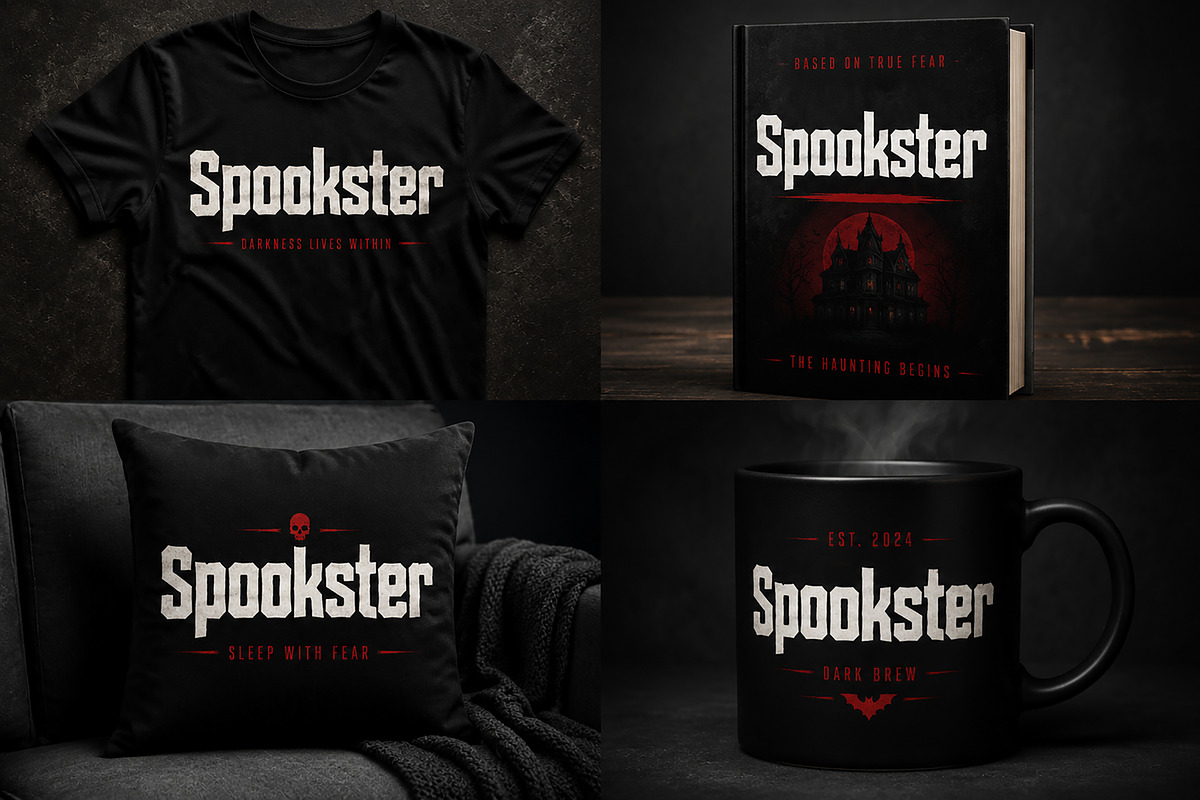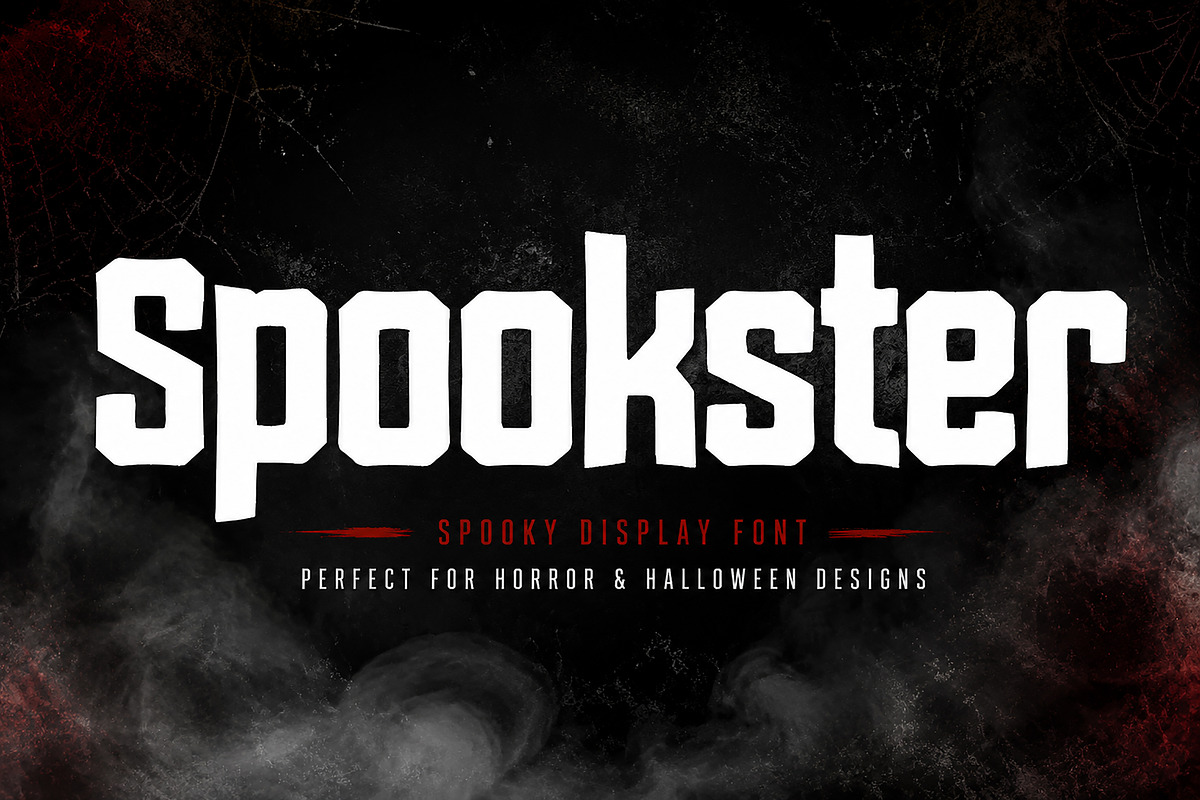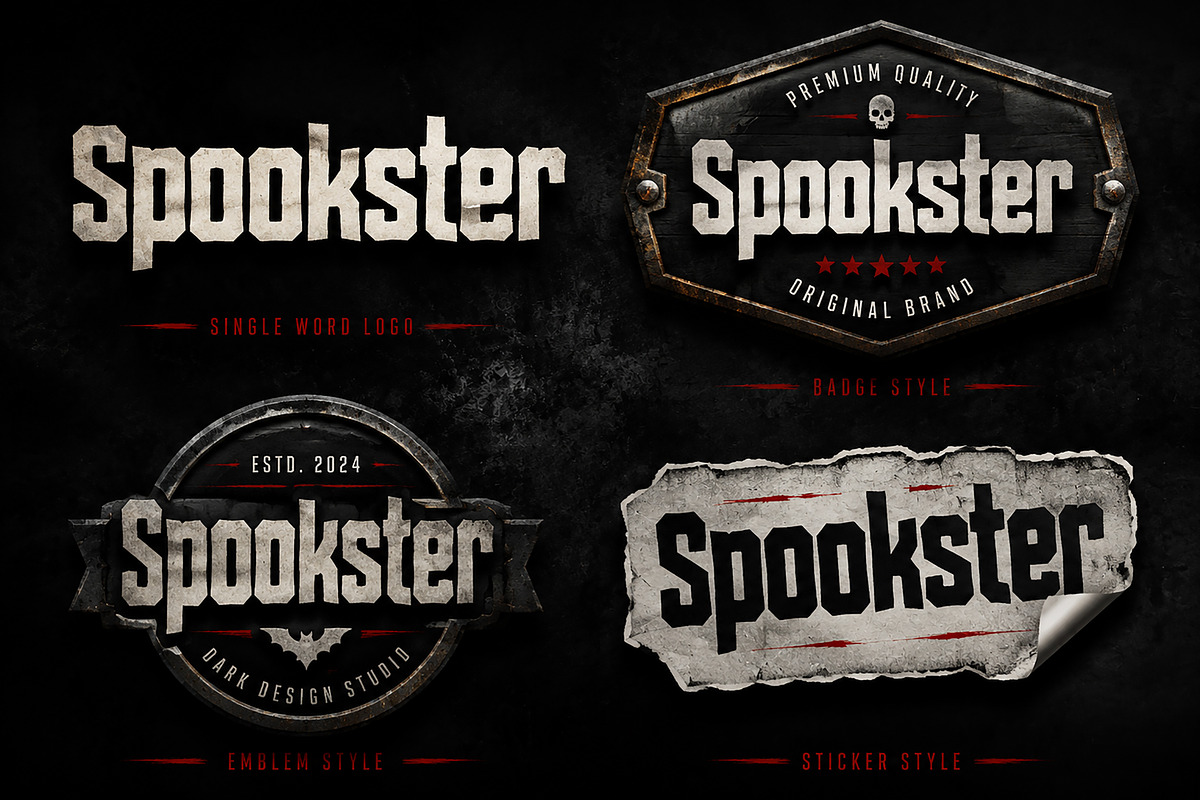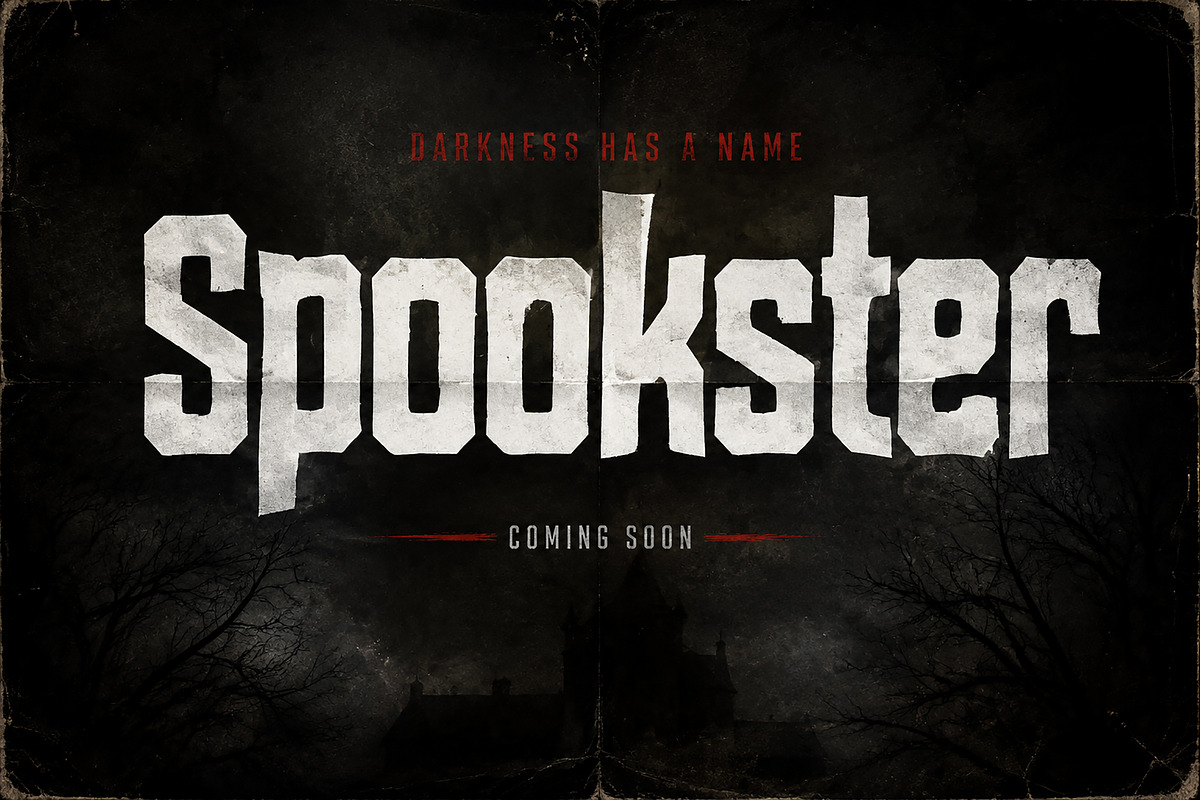
Spookster
Spookster – Bold Horror Display Font
Spookster is a powerful horror-inspired display font designed to bring a dark, mysterious, and cinematic atmosphere to your creative projects. With its bold geometric shapes and sharp dramatic style, this font is perfect for creating eye-catching titles, logos, posters, branding, and Halloween-themed designs.
Inspired by horror movies, thriller artwork, and dark aesthetic typography, Spookster delivers a strong visual impact while maintaining excellent readability. Its unique character style makes it ideal for designers looking to create memorable and professional designs.
Horror Movie Titles
Halloween Designs
Dark Branding
Gaming Titles
Poster Design
Album Covers
T-Shirt Graphics
Merchandise Design
Event Invitations
Creative Headlines
✓ Bold Horror Display Style
✓ Unique Letter Shapes
✓ Strong & Powerful Appearance
✓ Perfect for Large Headlines
✓ Professional Logo & Branding Use
✓ Clean Digital Font Quality
Create terrifyingly beautiful designs with Spookster — a bold display font made for horror lovers, designers, and creators who want their artwork to stand out.